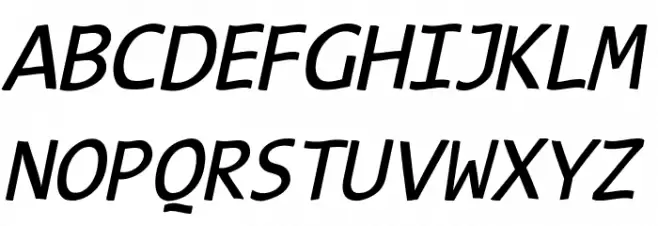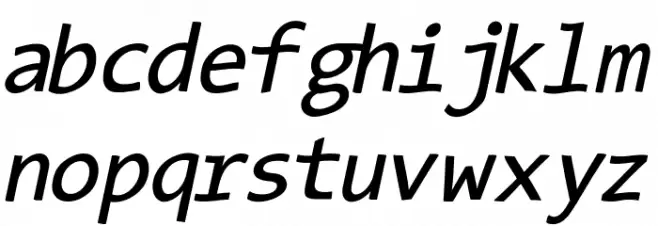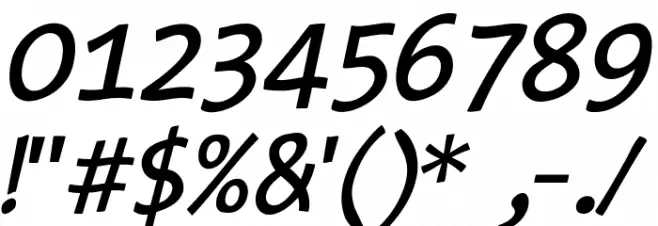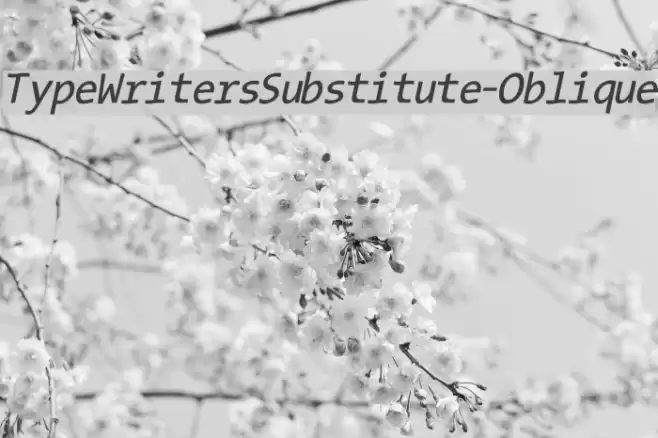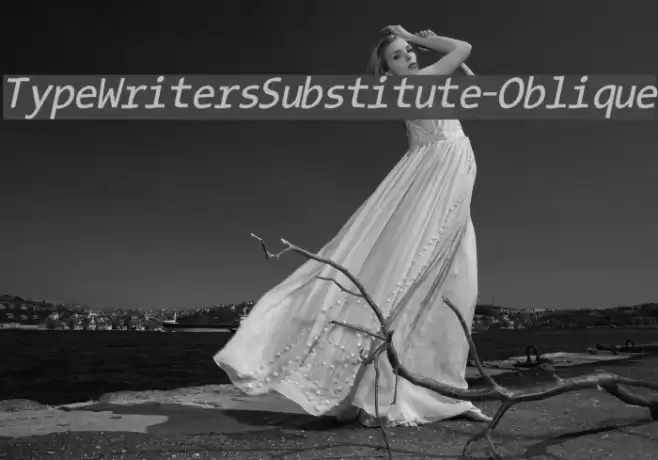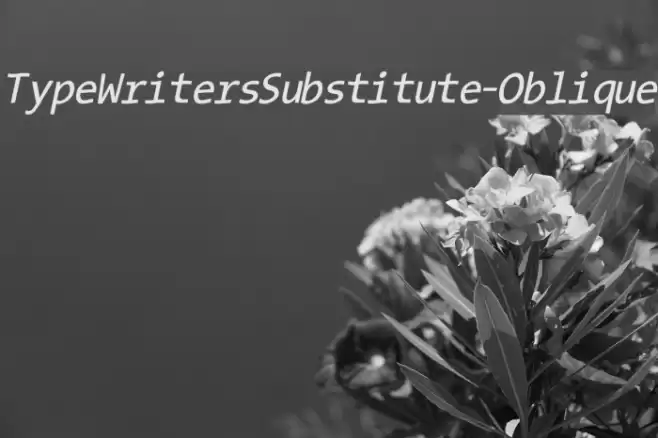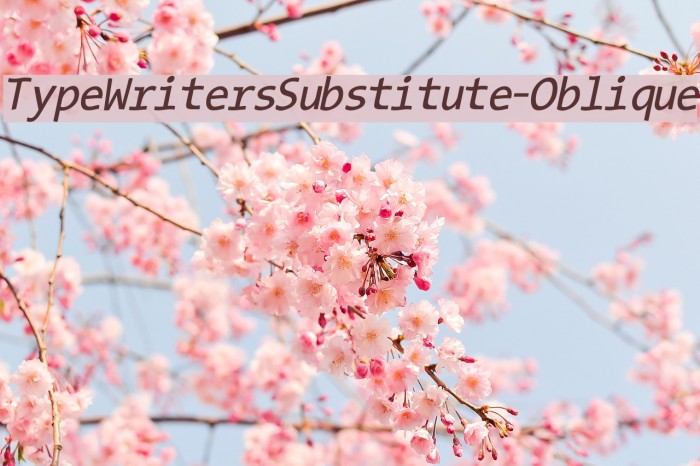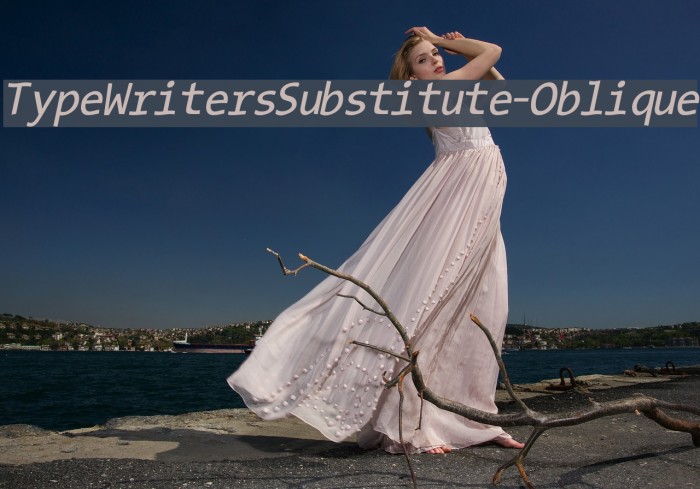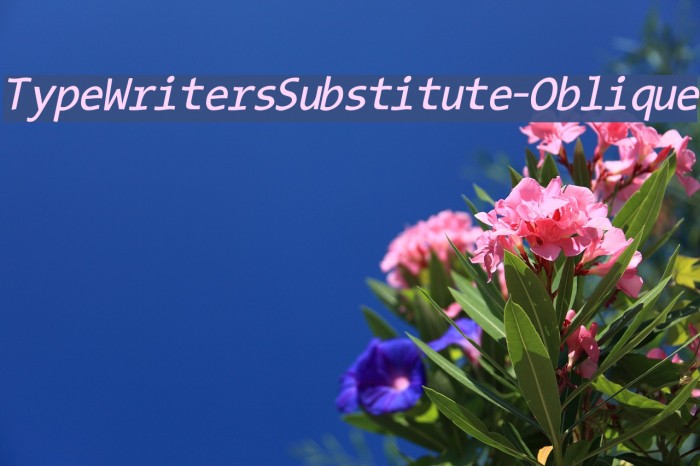
TypeWritersSubstitute-Oblique
This font features an oblique style with a distinct slant, reminiscent of traditional typewriter fonts but with a modern twist. The characters are well-defined with a consistent stroke width, giving it a clean and legible appearance. The uppercase letters are bold and prominent, while the lowercase letters maintain a smooth flow, enhancing readability. Numbers are clear and straightforward, making them ideal for data presentation. Special characters are neatly integrated, ensuring versatility in various contexts. The overall design is both functional and stylish, suitable for a range of applications.
A modern oblique typewriter-style font with clean lines and excellent readability.
- Category: Monospaced